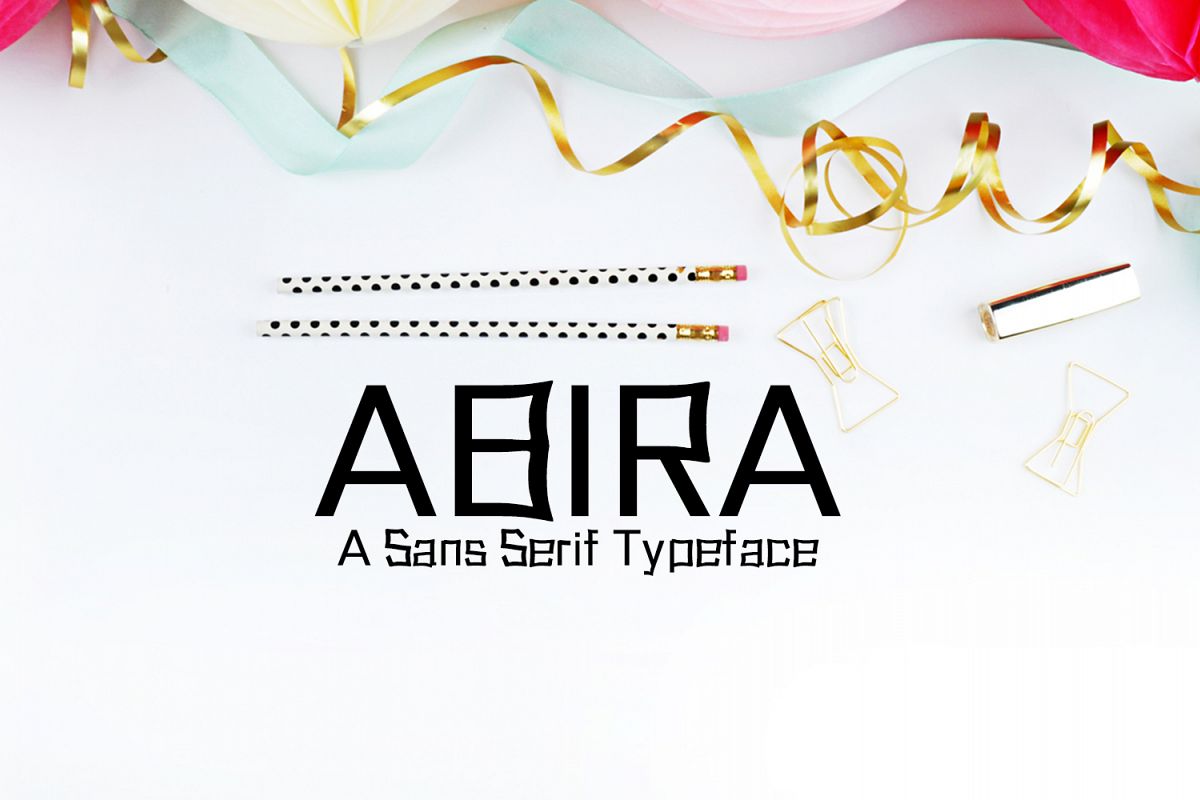
Abira Sans Serif Typeface
Abira-Regular
Abira-Ligh
Abira-Blur
Abira-Bold
Abira-Outline
Abira-Thin
Abira Sans Serif Decoration font is a set of 6 weights fonts. Abira font family is good for making creative templates and stationary. Abira typeface suits best for modern / clean designs, logos, headlines, banners and templates etc.It looks gorgeous in all caps with a wide-set spacing if you want to try a classy look, or beautiful on its own in capital and lowercase letters for something completely timeless.Included Features:
• Regular, Thin, Light, Outline, Blur and Bold Weights
• Extras: Uppercase Multilingual Letters, Lowercase Multilingual Letters, Numbers & Punctuation + Alternatives.
• Abira is a highly versatile Font Family Pack.
• Includes 5 weights
• The perfect choice for Modern, Fashion & Magazine Titles.
• Great for use on quotes, short phrases, magazines, logotypes and all sorts of advertising.